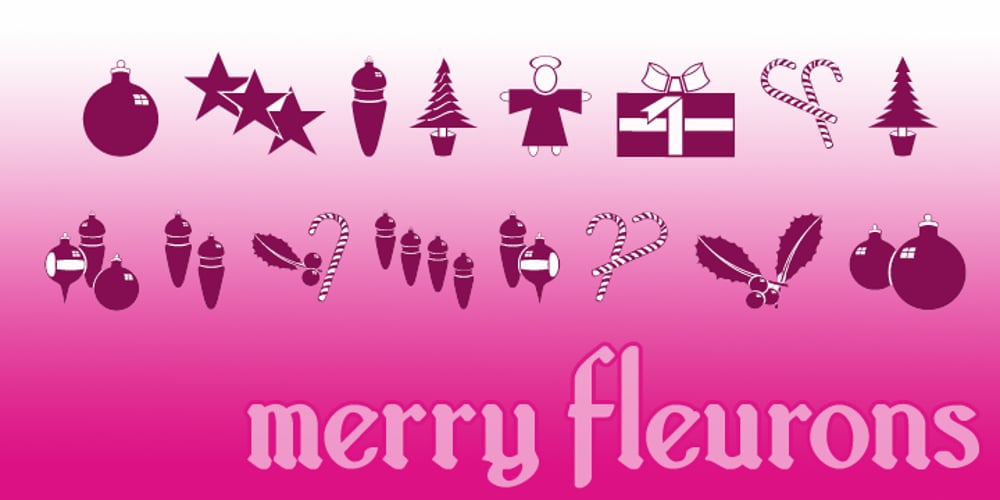
Merry Fleurons Font Family was designed by published by Greater Albion Typefounders. Merry Fleurons contains 1 styles and family package options. Merry Fleurons is a bit of fun for Christmas, New Year and the holidays. It’s ideal for decorating your own cards, party banners and any sort of Christmas publications. Need Holly? Christmas Trees? Baubles? Candy Canes? Angels? Merry Fleurons is just what you need.